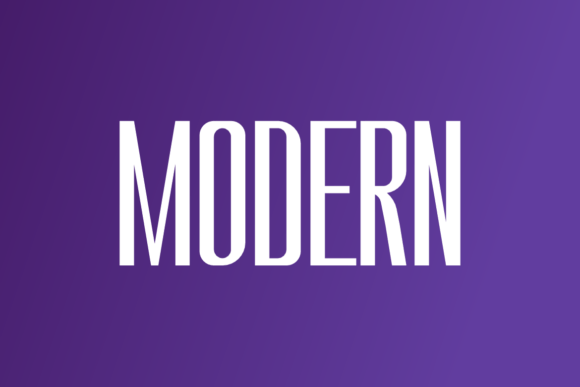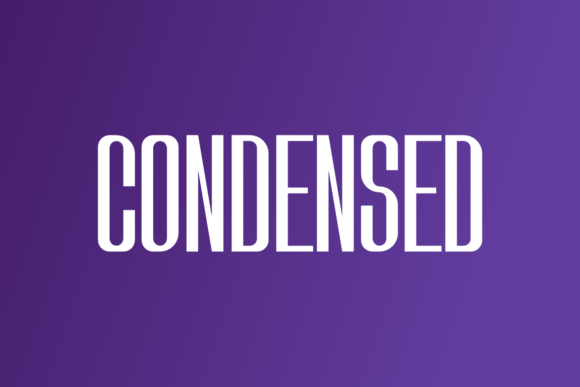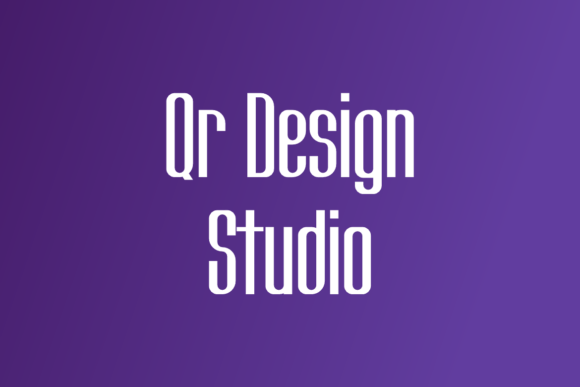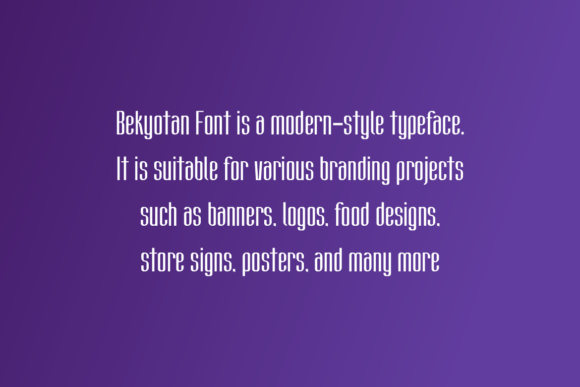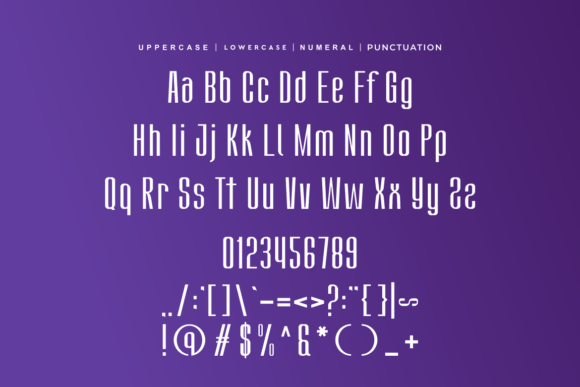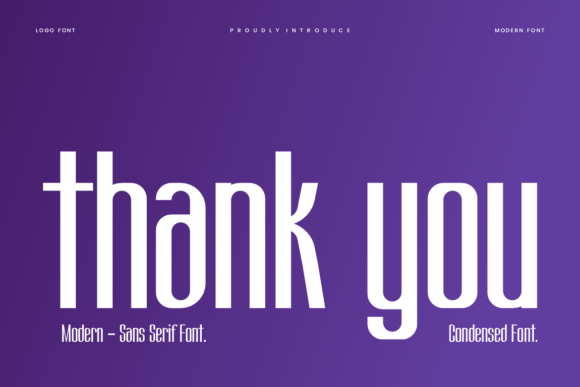
Bekyotan Font: The Ultimate Display Typeface for Bold Branding
In the world of typography, a font can make or break a brand’s identity. A well-crafted font can elevate a brand’s visual presence, convey its personality, and leave a lasting impression on its audience. Bekyotan Font is one such typeface that has been making waves in the design community with its bold and authentic display style. In this article, we’ll dive into the features, benefits, and uses of Bekyotan Font, and explore why it’s a must-have for designers and crafters.
What is Bekyotan Font?
Key Features of Bekyotan Font
- Bold and Authentic Style: Bekyotan Font boasts a bold and authentic display style that commands attention and makes a lasting impression.
- Versatility: The font is perfect for various branding projects, including logos, sports designs, and more.
- Wide Range of Contexts: Bekyotan Font stands out beautifully in a wide range of contexts, making it a versatile addition to any designer’s toolkit.
Benefits of Using Bekyotan Font
So, why should designers and crafters choose Bekyotan Font for their projects? Here are just a few benefits of using this amazing typeface:
- Instant Recognition: The bold and authentic style of Bekyotan Font ensures instant recognition and recall, making it perfect for branding projects.
- Emotional Connection: The font’s unique style helps create an emotional connection with the audience, making it ideal for projects that require a personal touch.
- Time-Saving: With Bekyotan Font, designers can save time and effort, as the font’s bold style eliminates the need for extensive styling and formatting.
Use Cases for Bekyotan Font
Bekyotan Font is a versatile typeface that can be used in a wide range of projects, including:
- Logo Design: The font’s bold and authentic style makes it perfect for logo design, ensuring instant recognition and recall.
- Sports Designs: Bekyotan Font is ideal for sports designs, such as jerseys, equipment, and promotional materials.
- Branding and Advertising: The font’s unique style makes it perfect for branding and advertising projects, including billboards, posters, and digital ads.
- Packaging Design: Bekyotan Font can add a touch of personality to packaging design, making products stand out on store shelves.
Tips for Using Bekyotan Font
To get the most out of Bekyotan Font, here are a few tips to keep in mind:
- Use it Boldly: Bekyotan Font is designed to make a statement, so don’t be afraid to use it boldly and creatively.
- Experiment with Colors: The font’s bold style looks great with a wide range of colors, so experiment with different palettes to find the perfect combination.
- Pair it with Other Fonts: Bekyotan Font can be paired with other fonts to create a unique and visually appealing typography.